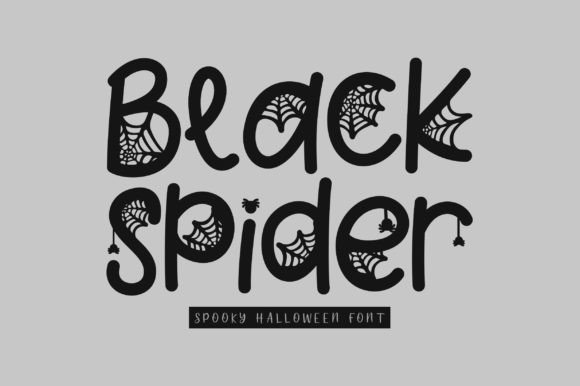
Enter the realm of the supernatural with Black Spider Font, a decorative typeface that captures the essence of Halloween with its spine-tingling charm. Designed by the ingenious minds at AMost Store, this font is a masterpiece of eerie elegance, where each letter transforms into a haunting work of art.
Prepare to be captivated as spiders delicately hang from the characters, while intricate spiderwebs entwine around them, casting an ethereal spell on your designs. Unleash your creativity and conjure chilling invitations, posters, and signage that will send shivers down the spines of your audience.
Black Spider Font is your gateway to a world of dark enchantment, where the ordinary becomes extraordinary. Embrace the ghostly allure of this font and weave your words into a tapestry of fear and delight. It's the perfect tool for conjuring spellbinding graphics, logos, and social media posts that will leave an indelible mark on your audience.
With Black Spider Font, you'll unleash a torrent of creative possibilities, casting a web of enchantment over your designs. It's the perfect companion for Halloween-themed projects, horror-inspired art, and any endeavor where you crave a touch of the supernatural.
So, delve into the shadowy depths of Black Spider Font, and let your imagination roam free. Let your designs take on a life of their own, imbued with the haunting beauty of the Halloween season. Embrace the eerie magic and weave your words into a captivating symphony of darkness and delight.